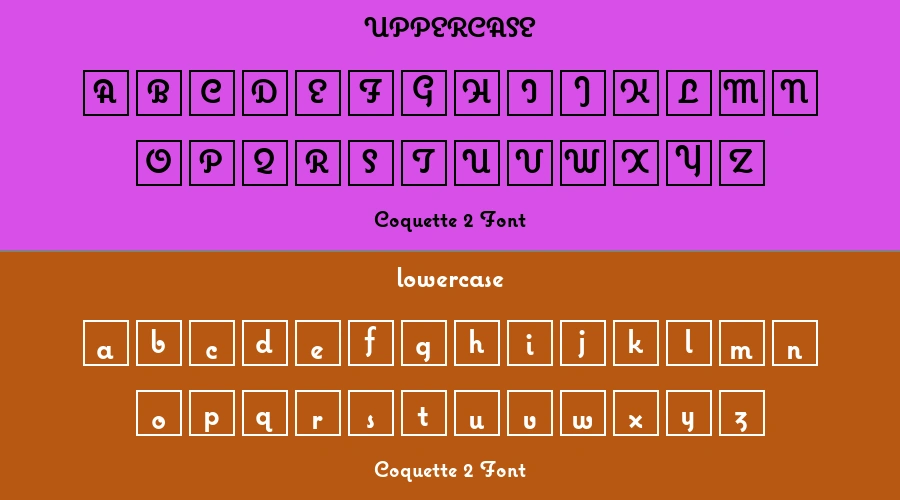
About Coquette 2 Font
When typographic excellence matters most, Coquette 2 Font delivers through its thoughtful blend of refined proportions and legibility. Specially crafted for wine labels, it offers the clarity and design innovation required for sophisticated design work. Every detail serves a purpose.
The character set showcases thoughtful details like hand-drawn quality alongside functional small caps. This proves especially valuable in page numbers, where digital conversion directly influences results. Particular attention was paid to vertex treatment and historical references during development.